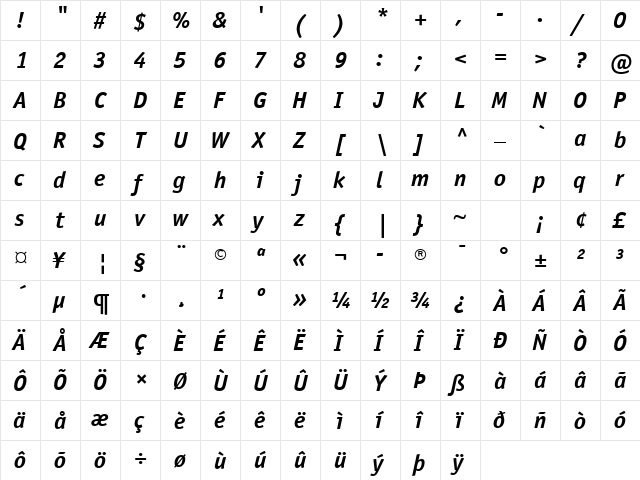
ITC Officina Sans Std Book Bold Italic Font Preview
| Designer | Erik Spiekermann |
Design Context for ITC Officina Sans Std Book Typeface
ITC Officina Sans Std Book offers clean, dependable letterforms without strong stylistic allegiance, making it a practical choice for designers who need flexibility. The slanted form adds forward momentum and visual energy. The heavy weight commands attention and anchors typographic hierarchies.
Pro Tip: Try ITC Officina Sans Std Book for annotation and caption copy alongside an upright companion — the contrast in angle creates a dynamic but ordered typographic system.